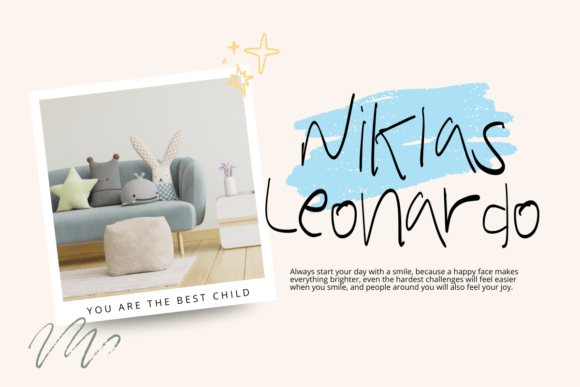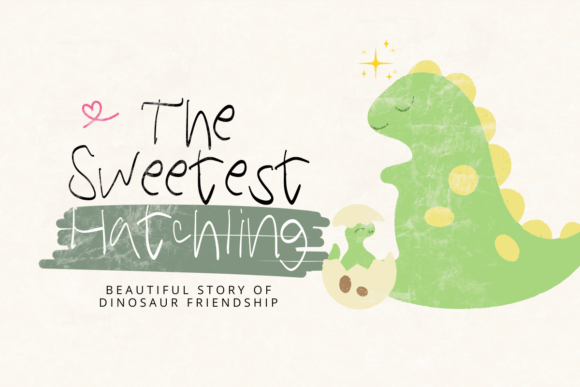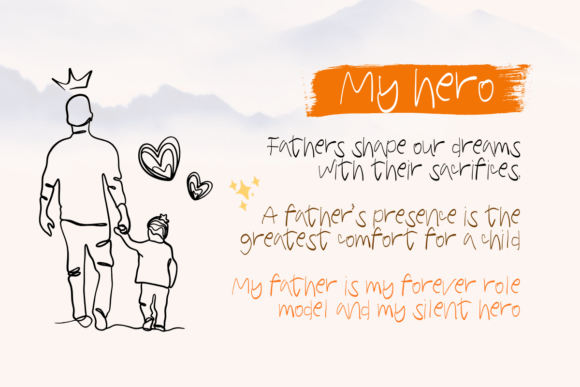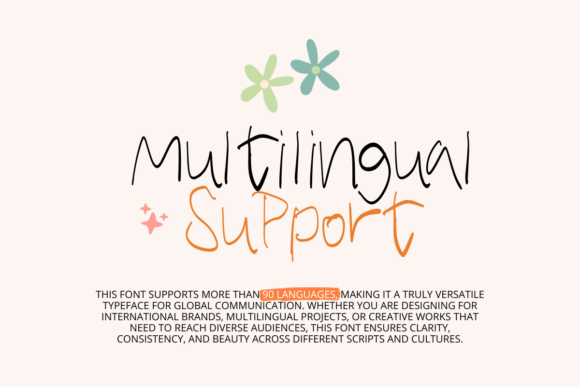
Introduction to Michael Harvey Font
Do you remember the joy of scribbling with crayons, the thrill of creating something entirely new with every stroke? As designers, we often strive for perfection, but sometimes the imperfections are what make a project truly special. That’s exactly what you’ll find in the Michael Harvey Font, a unique handwritten typeface that captures the essence of childhood.
Written by a 7-year-old child, this font is a treasure trove of playful strokes, imperfect lines, and a natural handwritten flow that feels warm, authentic, and full of character. It’s the perfect design resource for adding a fun and lighthearted touch to your next creative project, whether it’s a children’s book, poster, or branding campaign.
With its high-quality design and support for more than 90 languages, Michael Harvey Font is a versatile and valuable addition to any designer’s toolkit. And the best part? It’s available for free download, making it easy to incorporate into your next project and add a touch of magic to your design.
Honest Review: Michael Harvey Font
I recently had the chance to work with the Michael Harvey Font, and I must say, it was a delightful experience. This font has become one of my go-to design resources, especially for creative projects that require a touch of sophistication.
What works well: ✨ The Michael Harvey Font offers a high-quality, elegant design that’s perfect for titles, headings, and other prominent text elements. It’s also available for free download, making it an excellent choice for designers on a budget. Additionally, the font’s transparent background allows for seamless integration with any design background, giving you complete creative control.
- Limited font styles and variations
- May not be suitable for bold or playful text
Overall, I’m thoroughly impressed with the Michael Harvey Font. While it may have some limitations, its elegance and versatility make it an excellent addition to any designer’s toolkit. If you’re looking for a high-quality, free font for your creative projects, I highly recommend giving the Michael Harvey Font a try.
The Michael Harvey Font is a high-quality design resource perfect for various creative projects. Its unique style and transparent background make it an ideal choice for designers seeking a stylish and modern look.
The Michael Harvey Font is ideal for:
Graphic design projects, such as brochures, flyers, and posters.
Web design projects, such as landing pages and website headers.
Print design projects, such as business cards and letterheads.